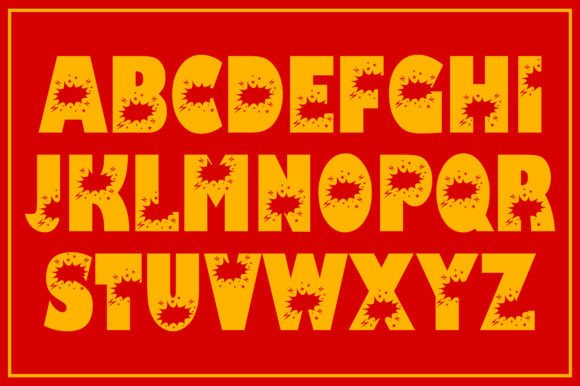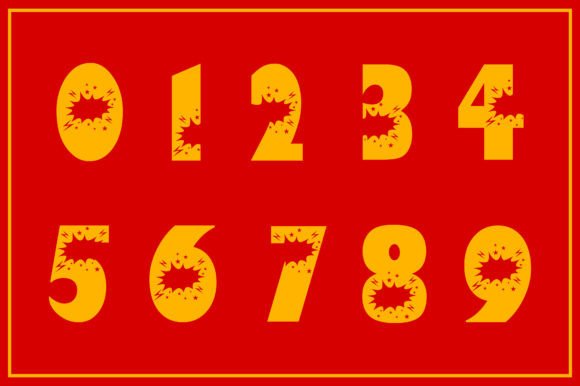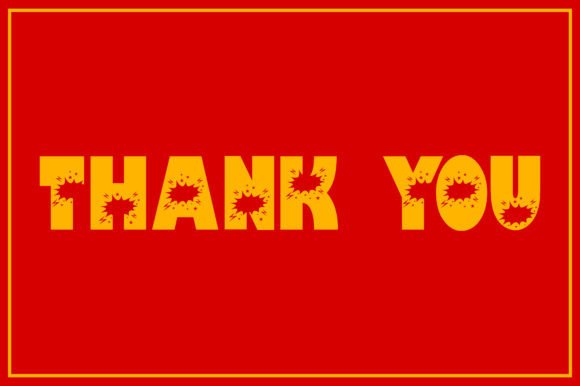
Introducing Boom Font: The Ultimate Decorative Font for Dynamic Designs
Are you tired of using the same old fonts in your designs? Look no further than Boom Font, a fun and flashy decorative font that’s sure to add a burst of energy to your text. With its big, bold letters and explosion shapes, Boom Font is the perfect choice for designers and crafters who want to make a statement.
What is Boom Font?
Boom Font is a decorative font that features large, bold letters with explosion shapes, giving your text a dynamic and exciting look. The font is designed to be attention-grabbing and playful, making it perfect for use in a variety of design projects, from posters and flyers to social media graphics and craft projects.
Key Features of Boom Font
• Big, bold letters: Boom Font features large, bold letters that are sure to grab attention.
• Explosion shapes: The font includes explosion shapes that add a dynamic and exciting touch to your text.
• Fun and playful: Boom Font is designed to be fun and playful, making it perfect for use in designs that require a lighthearted touch.
Uses for Boom Font
Boom Font is a versatile font that can be used in a variety of design projects, including:
• Posters and flyers: Use Boom Font to create eye-catching posters and flyers that are sure to grab attention.
• Social media graphics: Add a pop of personality to your social media graphics with Boom Font.
• Craft projects: Use Boom Font to add a fun and playful touch to your craft projects, such as handmade cards and gift tags.
• Signs and banners: Boom Font is perfect for use in signs and banners that need to make a big impact.
Tips for Using Boom Font
Here are a few tips for using Boom Font in your designs:
• Use it sparingly: While Boom Font is fun and playful, it can be overwhelming if used too much. Use it sparingly to add a pop of personality to your design.
• Pair it with a simple font: Pair Boom Font with a simple font to create contrast and make your design more readable.
• Experiment with colors: Boom Font looks great in a variety of colors, so don’t be afraid to experiment and find the perfect color for your design.
Boom Font is a fun and flashy decorative font that’s sure to add a burst of energy to your designs. With its big, bold letters and explosion shapes, it’s the perfect choice for designers and crafters who want to make a statement. Whether you’re creating posters, social media graphics, or craft projects, Boom Font is a versatile font that can be used in a variety of design projects. So why not give it a try and see how it can add a pop of personality to your designs?